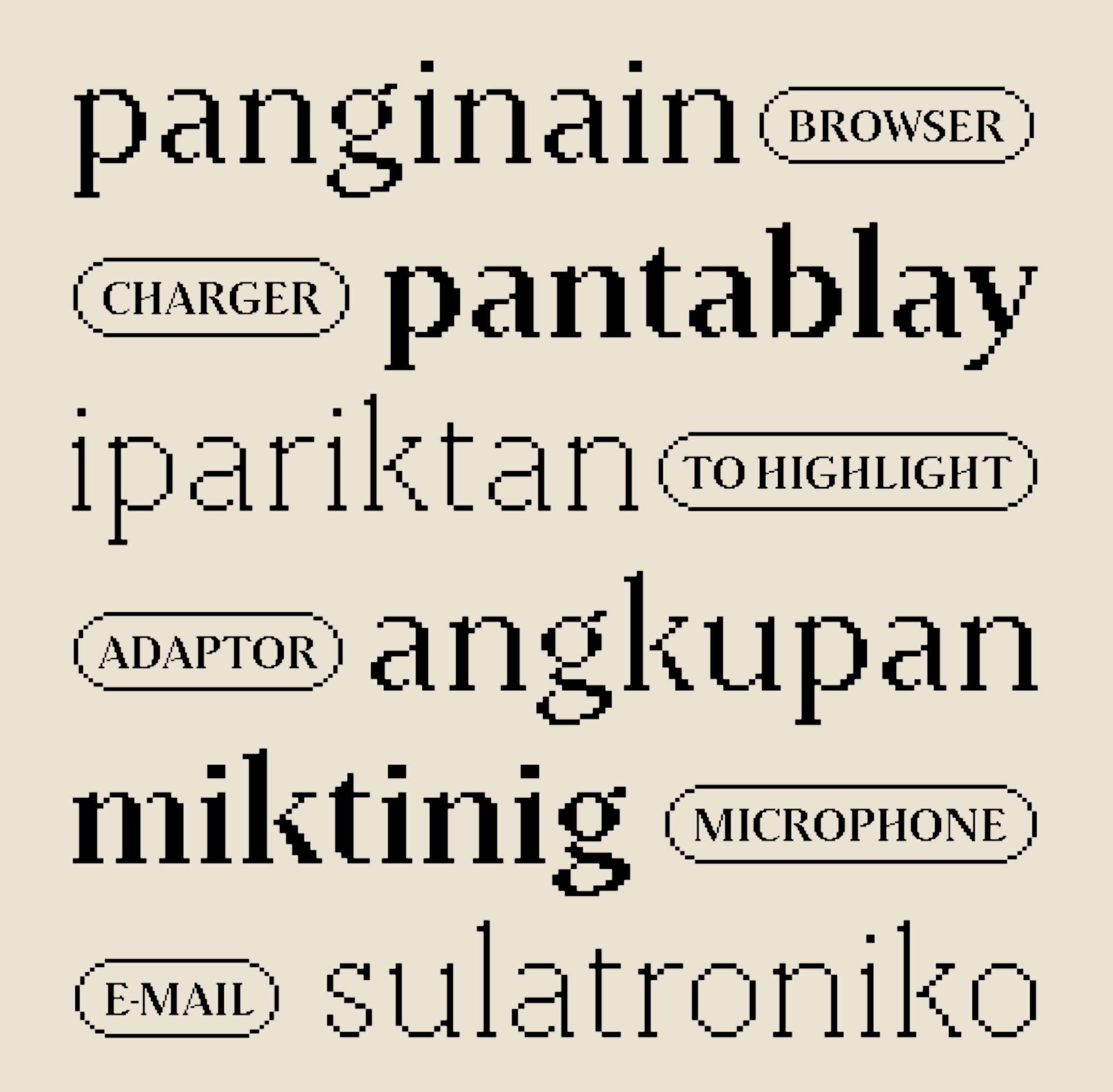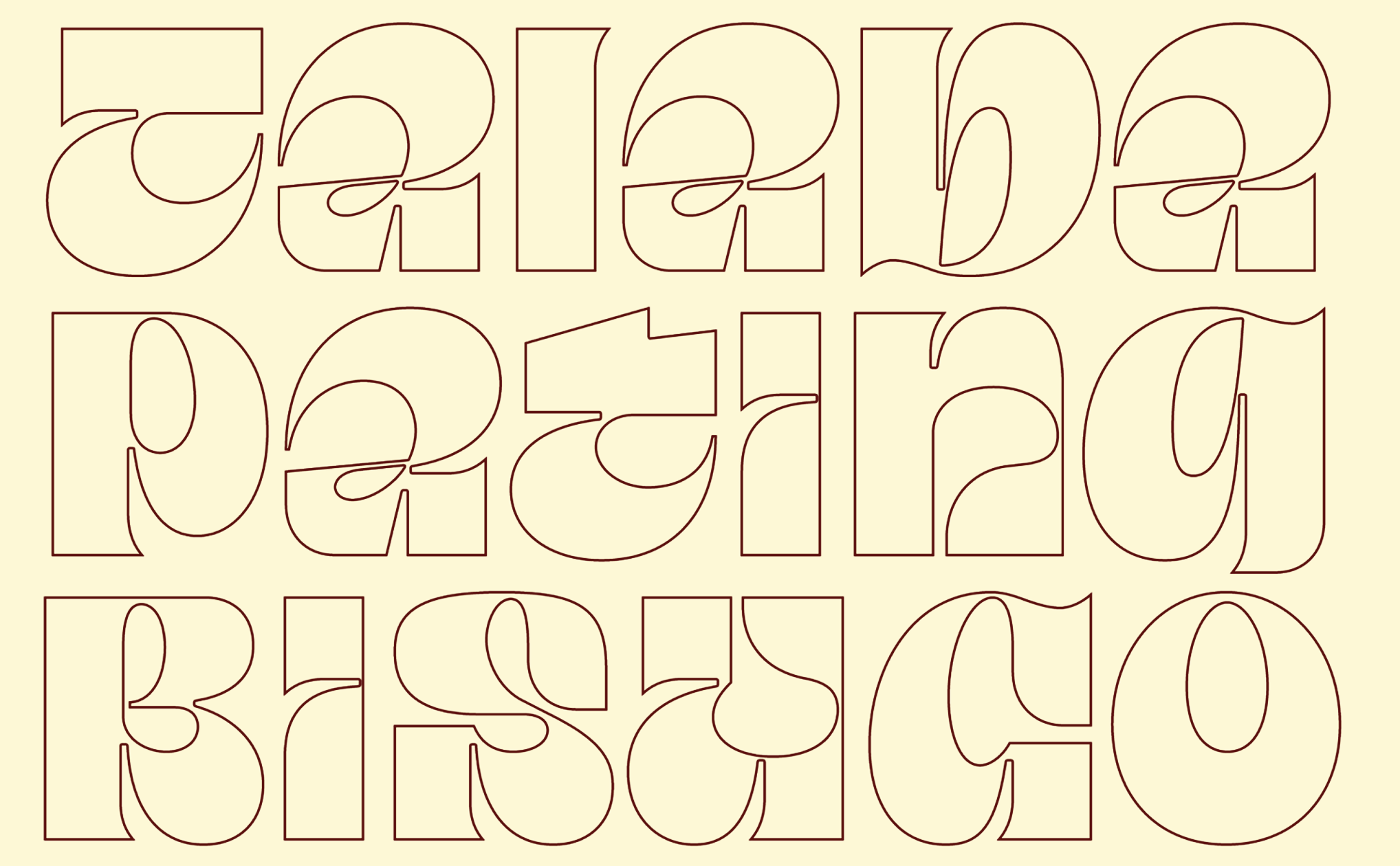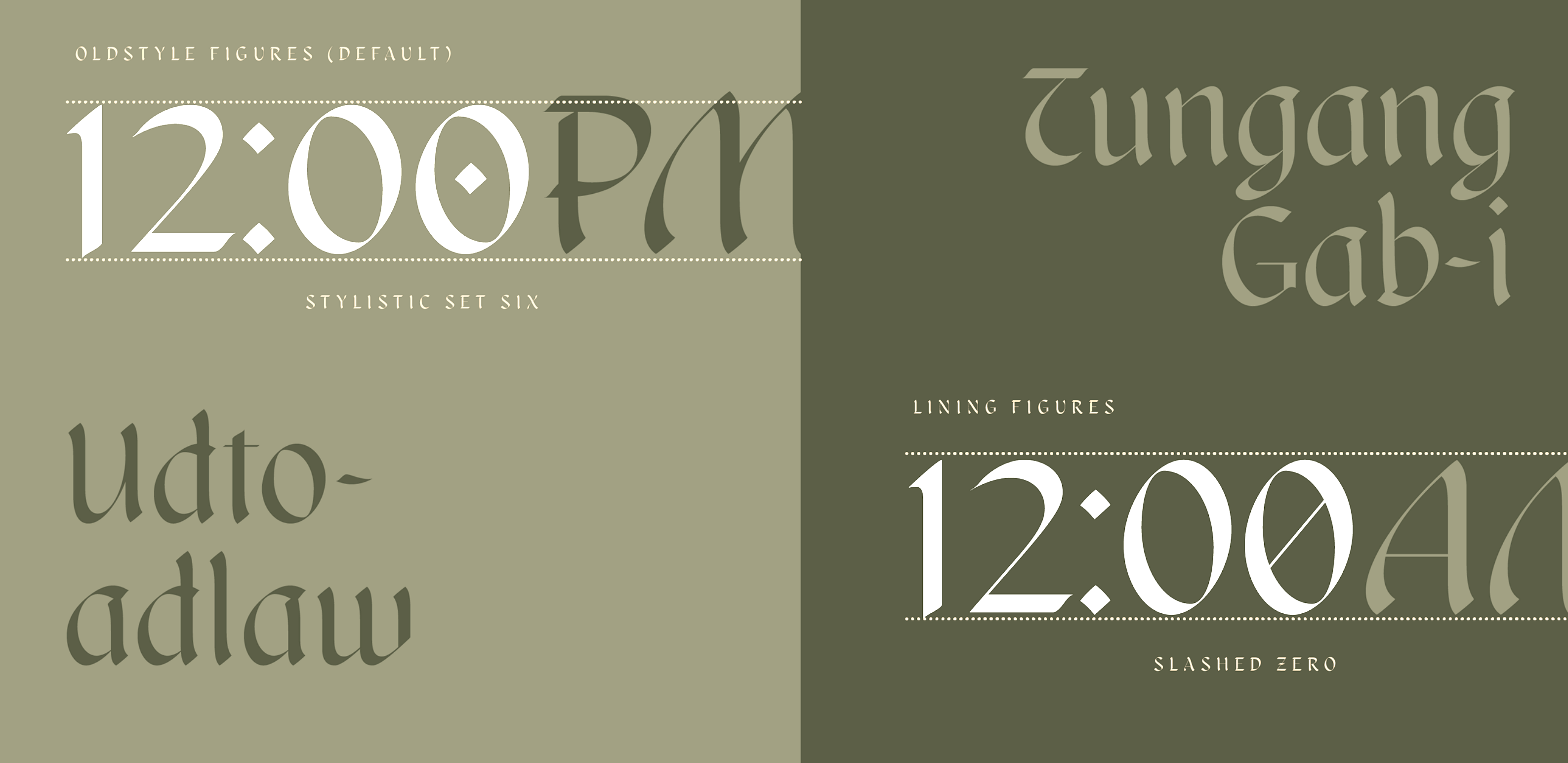
John David Maza
Iloilo City, The Philippines-based editorial designer who created the pixel typeface Kawingan (2020-2022), the powerful text free angular typeface Maragsa (2020) and the free vintage typeface Bantayog (2020) abd Bantayog Baybayin (2021).
In 2021, he designed the pixelish typeface Kawingan Baybayin, the free experimental typeface Talampas, the display typeface Taklobo (+Taklobo Baybayin; to be released by Blaze) and the calligraphic typeface Ulalong.
Typefaces from 2022: Amakan (an experimental typeface patterned after the woven split-bamboo mats used as walls for traditional nipa huts in the Philippines; it has two free fonts, Sheet and Strips), Lapi (a wide modulated sans).